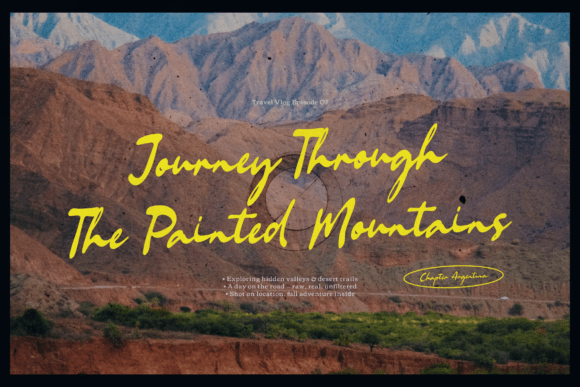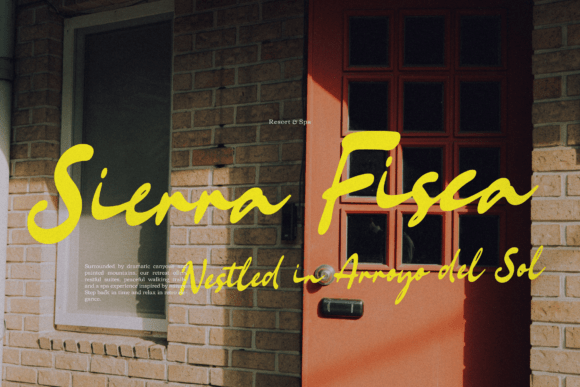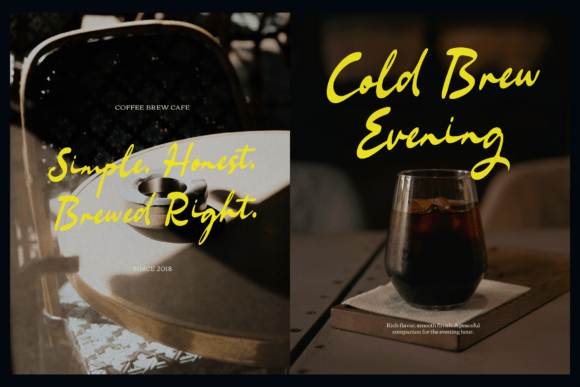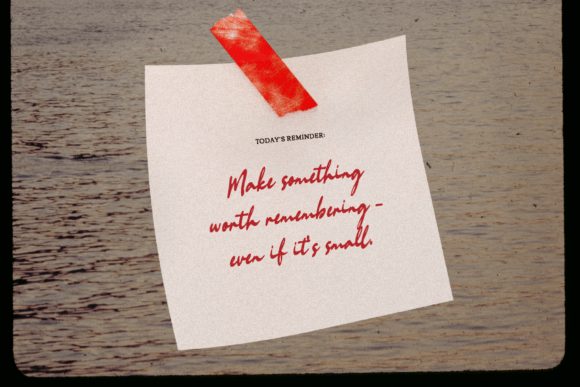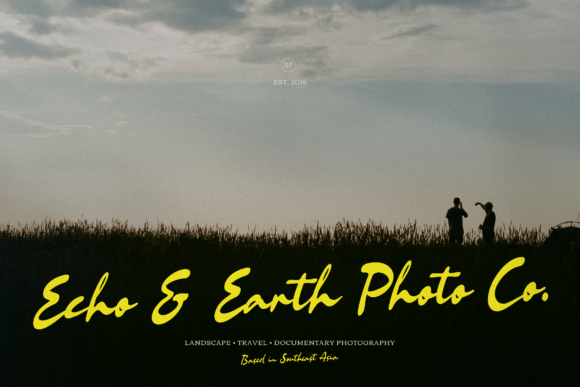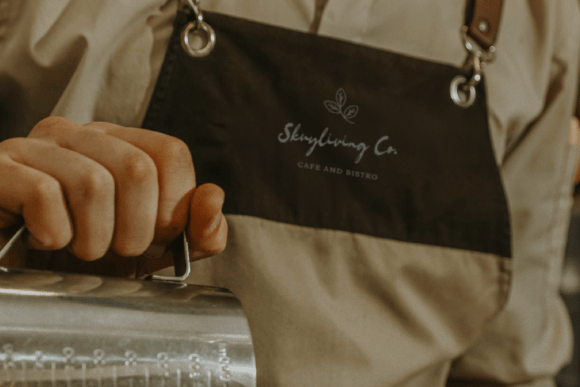
Timeless Typography: Unlocking the Magic of the Bellford Dusktime Font
As a designer, there’s nothing quite like the rush of inspiration that comes from digging through vintage design archives. You stumble upon an old poster, and the words seem to leap off the page, transporting you to a bygone era of style and creativity. For many of us, this is the moment when we fall in love with the Bellford Dusktime Handwritten Retro Script, a typeface that embodies the raw, energetic spirit of mid-century hand-lettering.
With its thick, fast-paced strokes and brush-like texture, the Bellford Dusktime Font is the perfect tool for designers looking to add a retro punch to their projects. Whether you’re creating vintage-inspired branding, energetic album art, or nostalgic movie titles, this font is sure to bring a confident, unmistakable presence to your work.
- Unique Characteristics: The Bellford Dusktime Font features a unique blend of modern and vintage elements, with intricate details and subtle texture.
Bellford Dusktime Font Review
I recently had the chance to work with the Bellford Dusktime Font, and I have to say, it’s a unique and stylish addition to any design project. ✨ The font’s warm and inviting tone immediately caught my attention, and its versatility in various design contexts is impressive.
- ✨ Elegant and sophisticated aesthetic, perfect for luxury brands or high-end products
- ✨ Wide range of font styles and weights, making it suitable for various design applications
- ✨ Beautifully crafted letterforms, with intricate details and textures that add depth and visual interest
However, I did encounter some limitations with the font. ⚠️ The font’s complexity can make it difficult to read at smaller sizes, and some letters may appear too ornate or busy. Additionally, the font’s weight and style variations may not be perfectly consistent across all platforms and devices.
Overall, I’d give the Bellford Dusktime Font 4 out of 5 stars. While it has its limitations, its unique charm and style make it a great choice for designers looking to add a touch of elegance and sophistication to their work.
Tips for Getting the Most Out of Bellford Dusktime Font
Use Bellford Dusktime Font for titles, headings, and body text in designs that require a unique and elegant look.
Combine Bellford Dusktime Font with other fonts to create a visually appealing typography.
Bellford Dusktime Font is ideal for:
Brand logos and identity
Photography captions and descriptions
Book titles and author names
Alternatives to Bellford Dusktime Font
Great Vibes Font is a beautiful, handwritten font that is perfect for adding a touch of elegance and sophistication to your designs. It is ideal for use in invitations, quotes, and other text-based designs where a unique and stylish font is needed.
Great Vibes Font is similar to Bellford Dusktime Font in that it has a similar relaxed, handwritten feel. However, Great Vibes Font is more elegant and refined, making it a great choice for more formal designs.
Pacifico Font is a beautiful, cursive font that is perfect for use in designs where a touch of warmth and personality is needed. It is ideal for use in branding, logos, and other text-based designs where a unique and stylish font is needed.
Pacifico Font is similar to Bellford Dusktime Font in that it has a similar relaxed, handwritten feel. However, Pacifico Font is more flowing and cursive, making it a great choice for designs where a sense of movement and energy is needed.
Alex Brush Font is a beautiful, handwritten font that is perfect for use in designs where a touch of elegance and sophistication is needed. It is ideal for use in invitations, quotes, and other text-based designs where a unique and stylish font is needed.